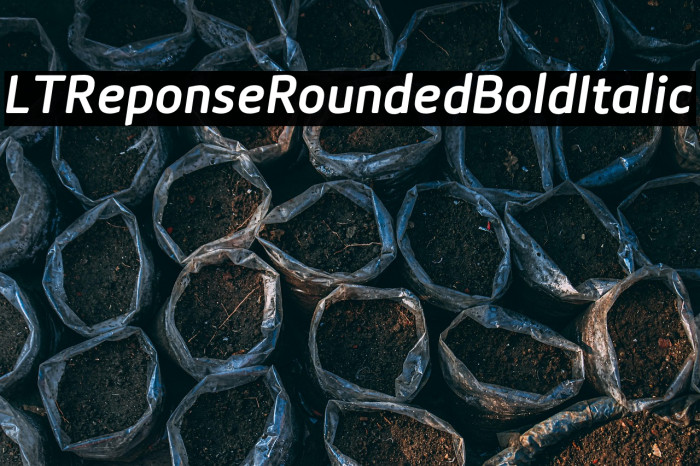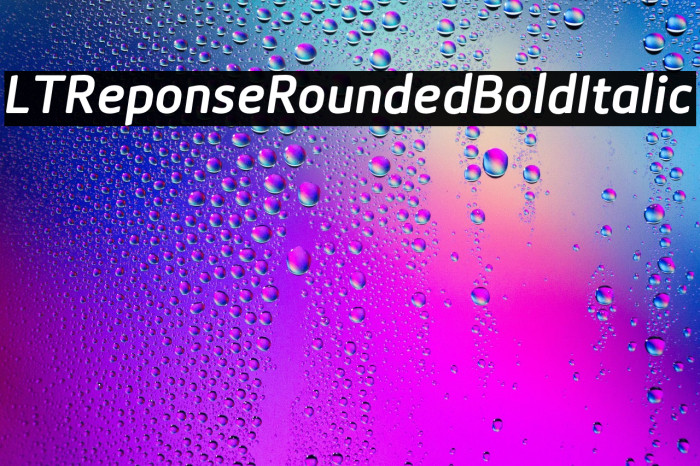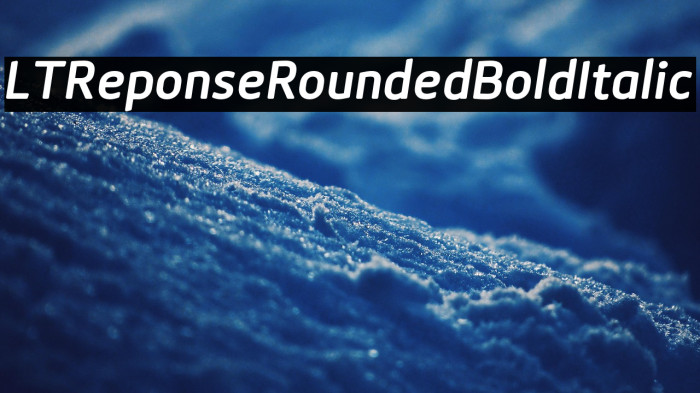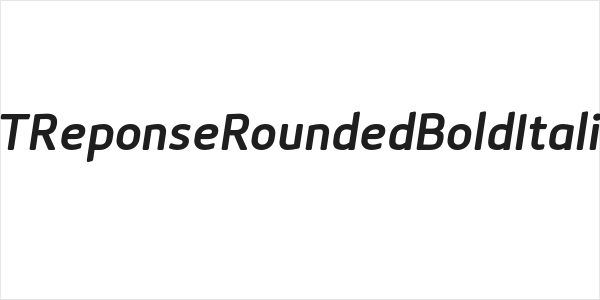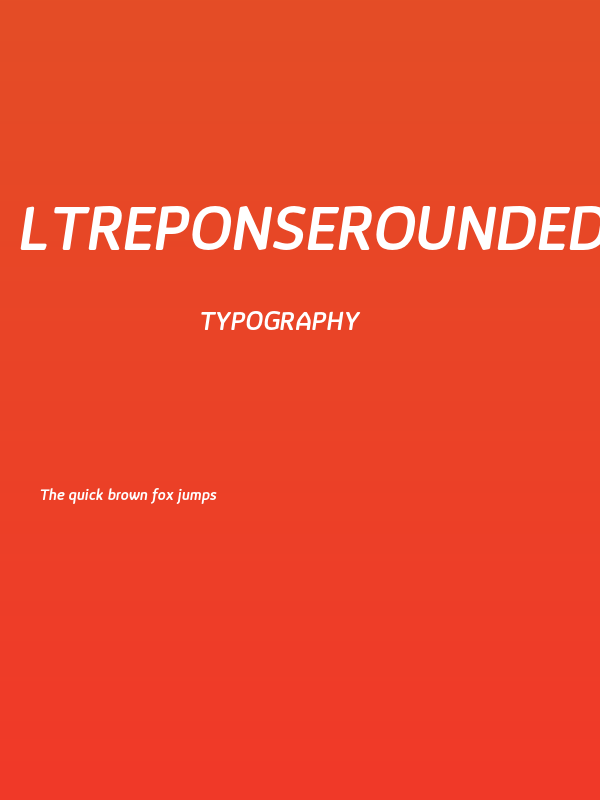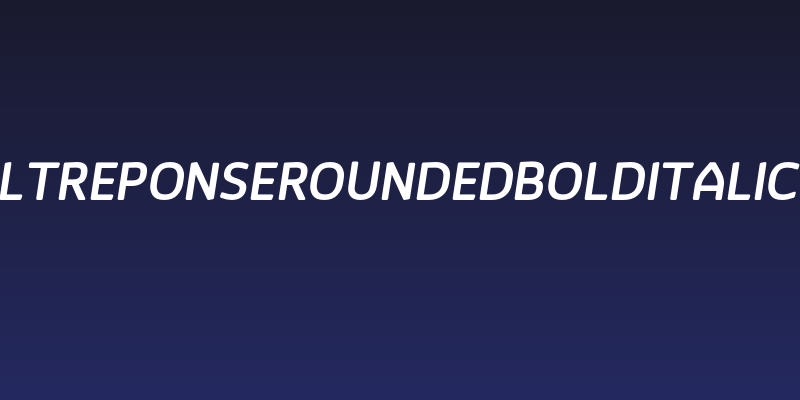
LTReponseRoundedBoldItalic Font
LTReponseRoundedBoldItalic Description
This font features a modern and rounded design with a bold and italic style. The characters are slightly slanted, adding a dynamic and energetic feel. The rounded edges give it a friendly and approachable appearance, making it suitable for a variety of applications. The uppercase and lowercase letters maintain consistent proportions, ensuring readability. The numerals are clear and distinct, while the special characters are well-integrated, providing versatility for different uses. The overall design balances boldness with smooth curves, creating a harmonious and visually appealing typeface.